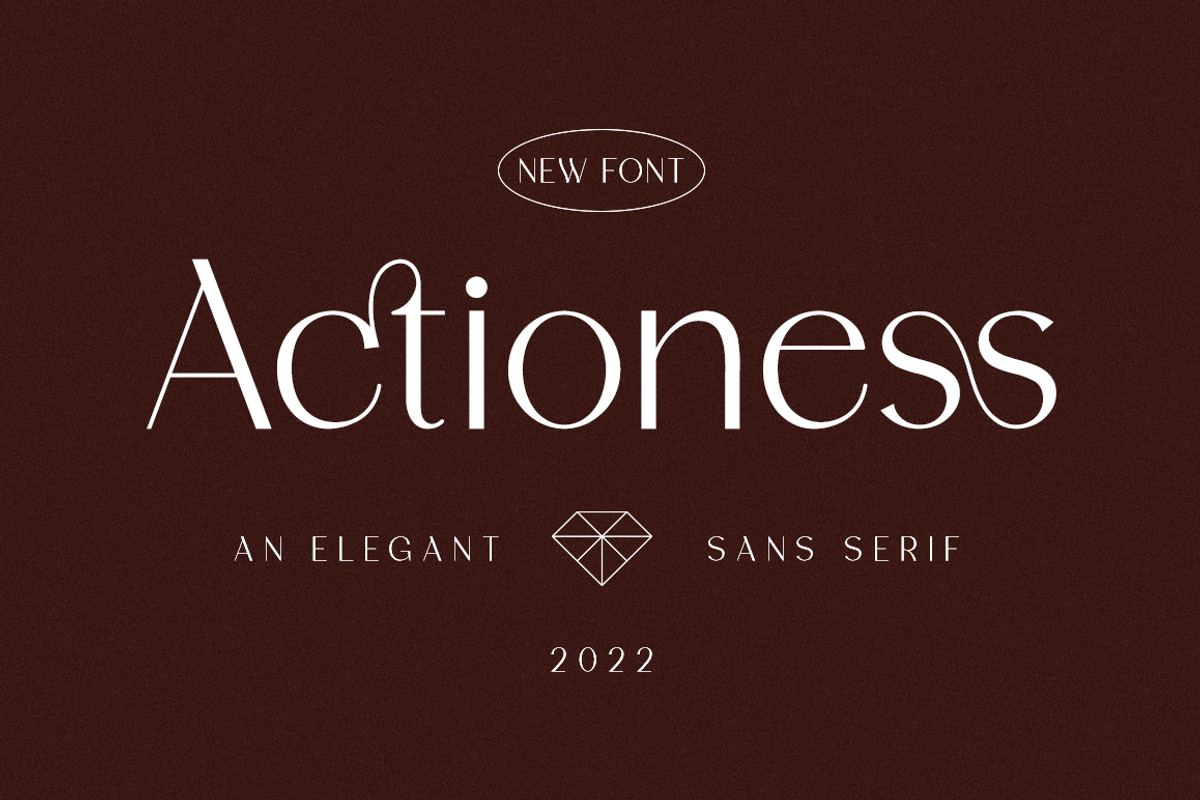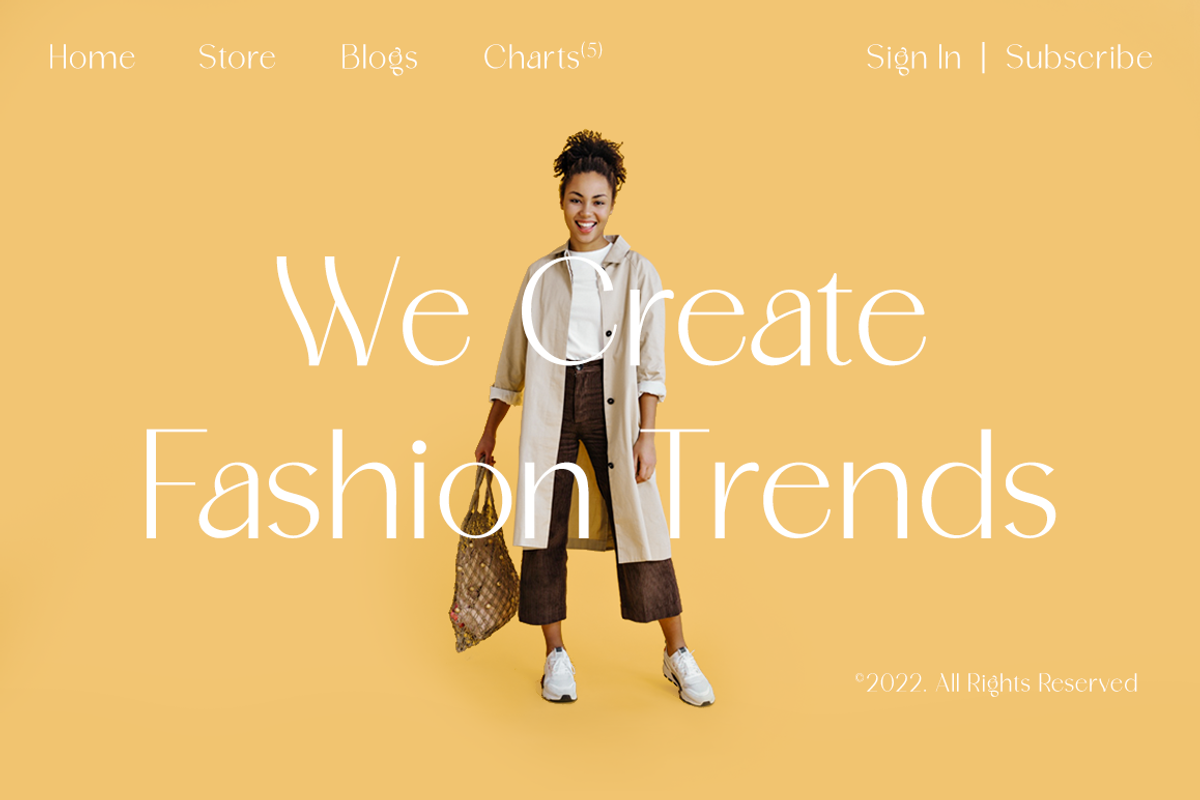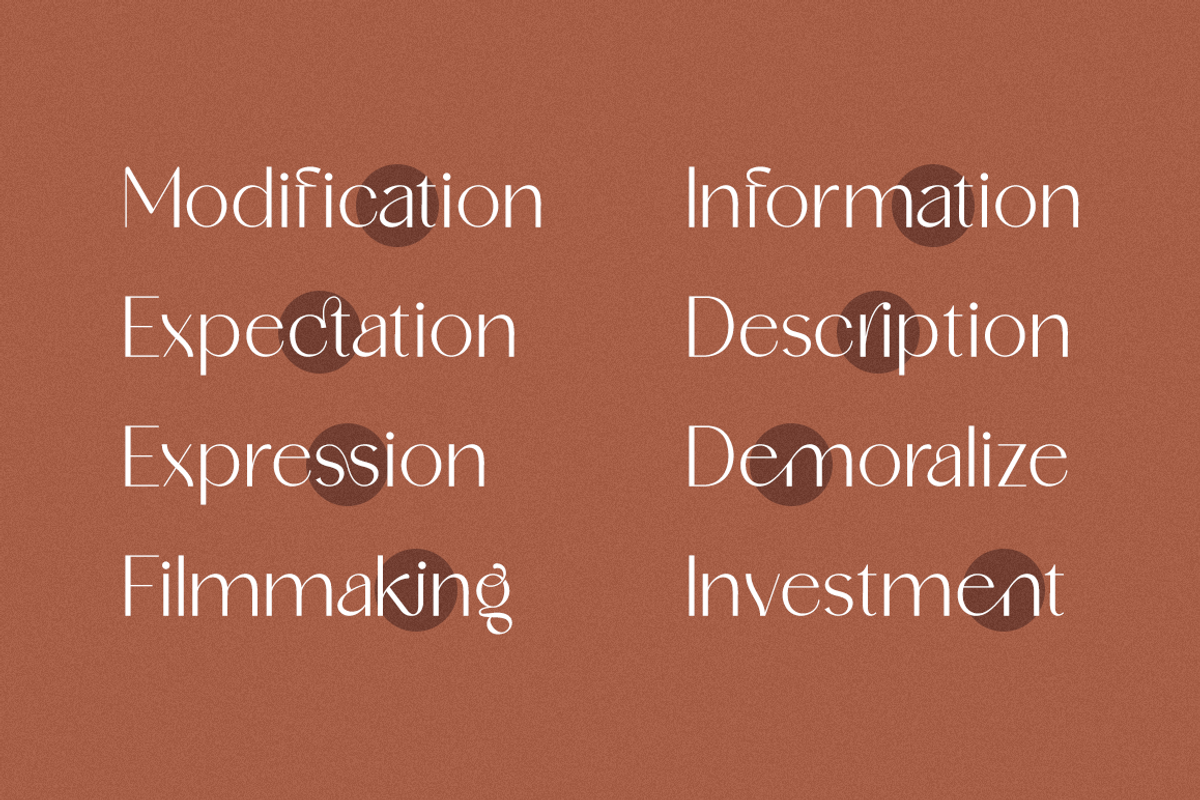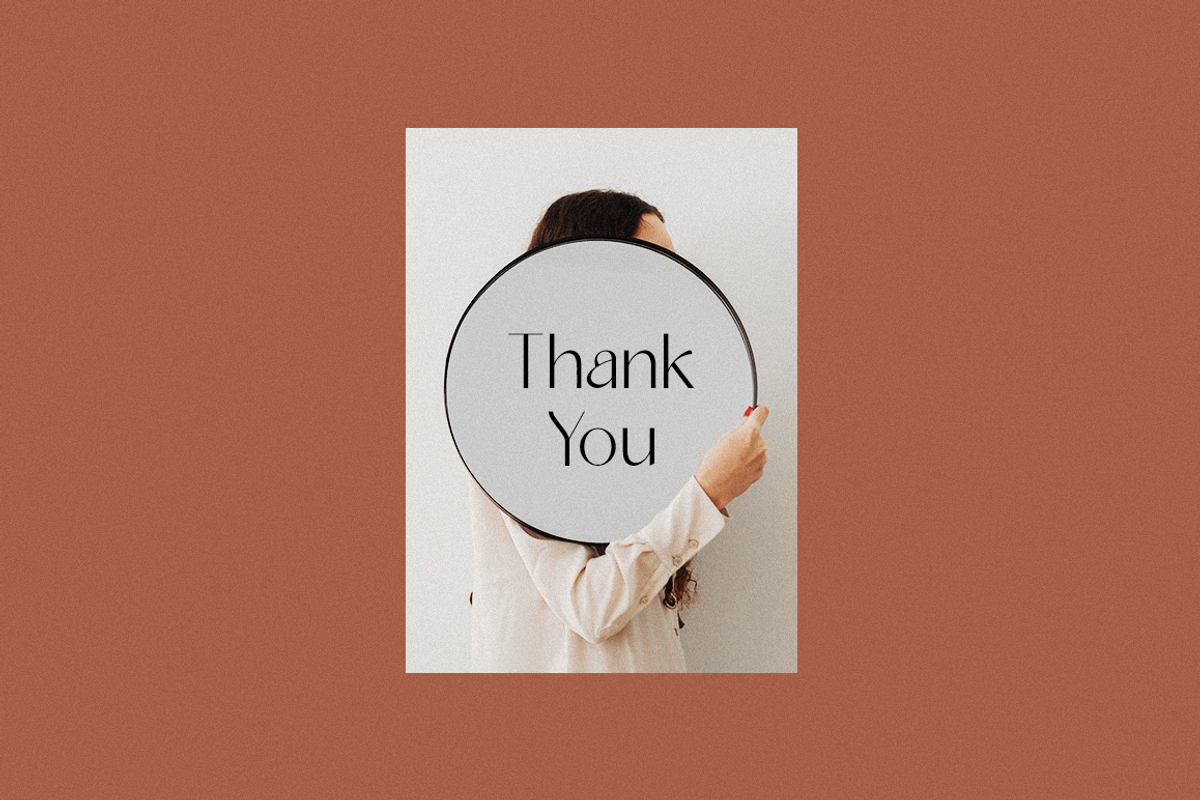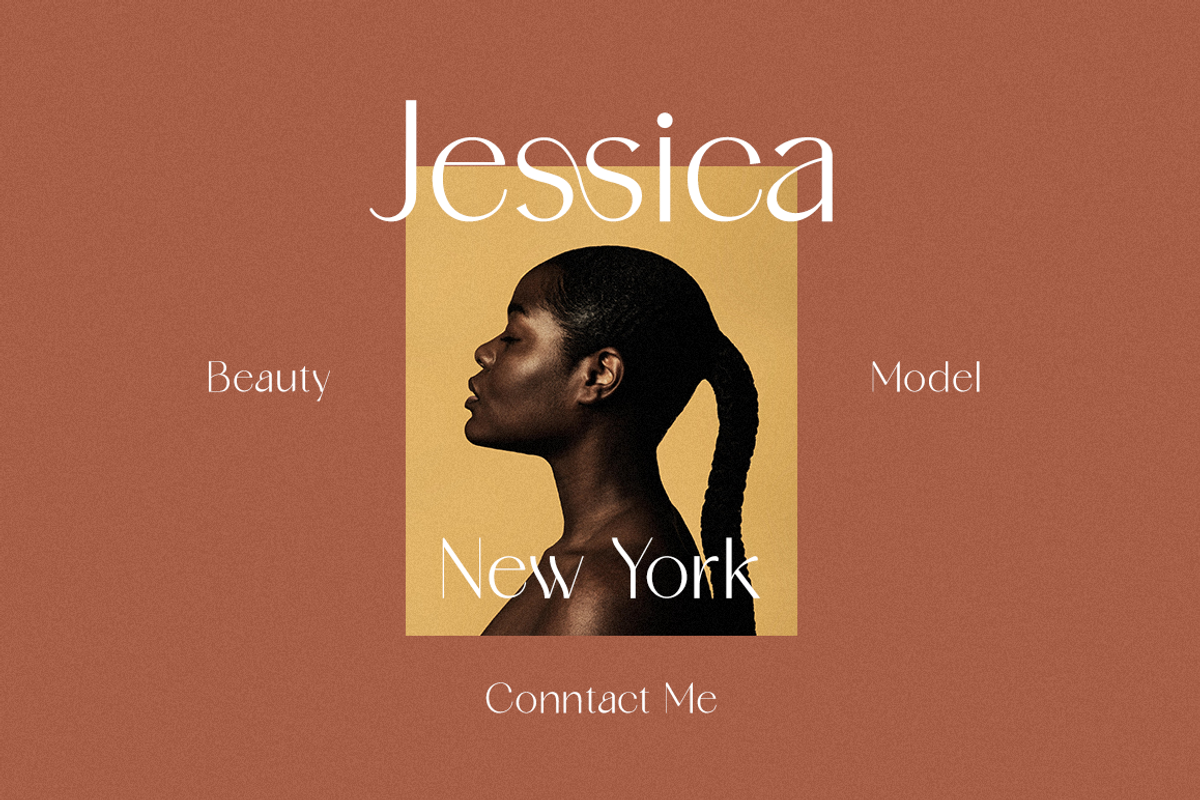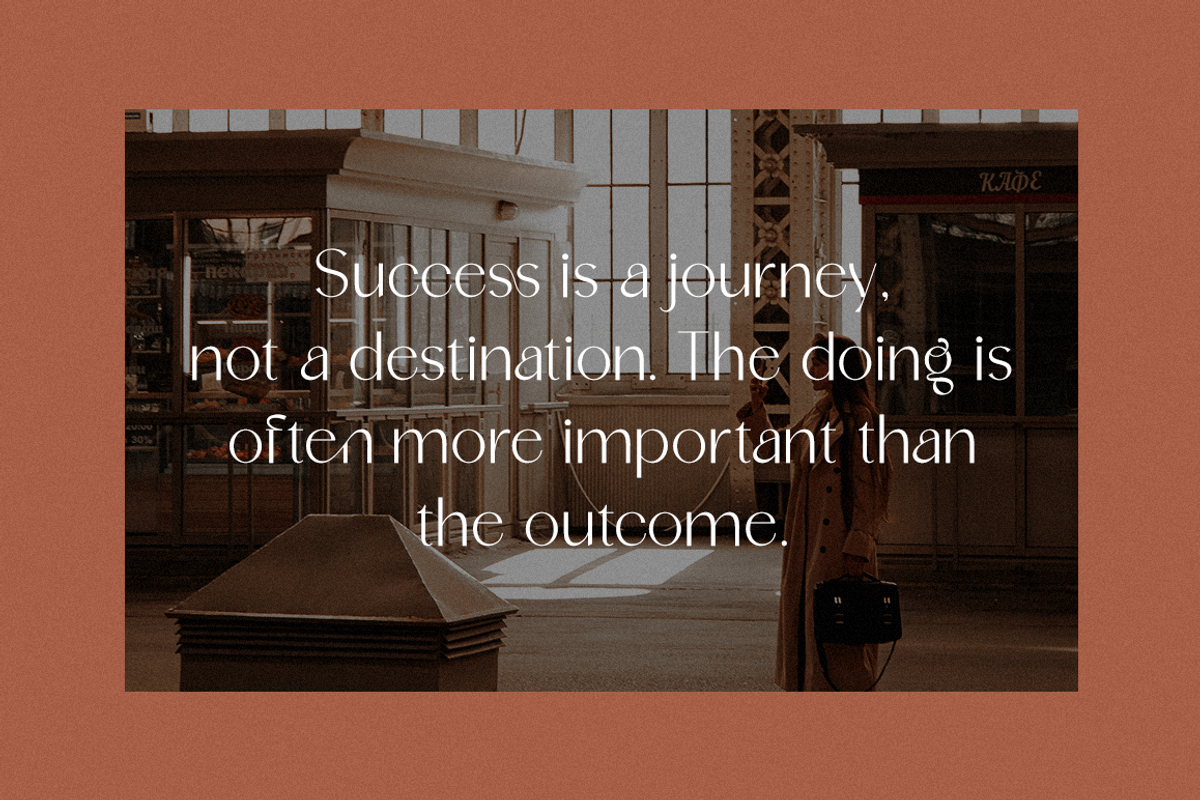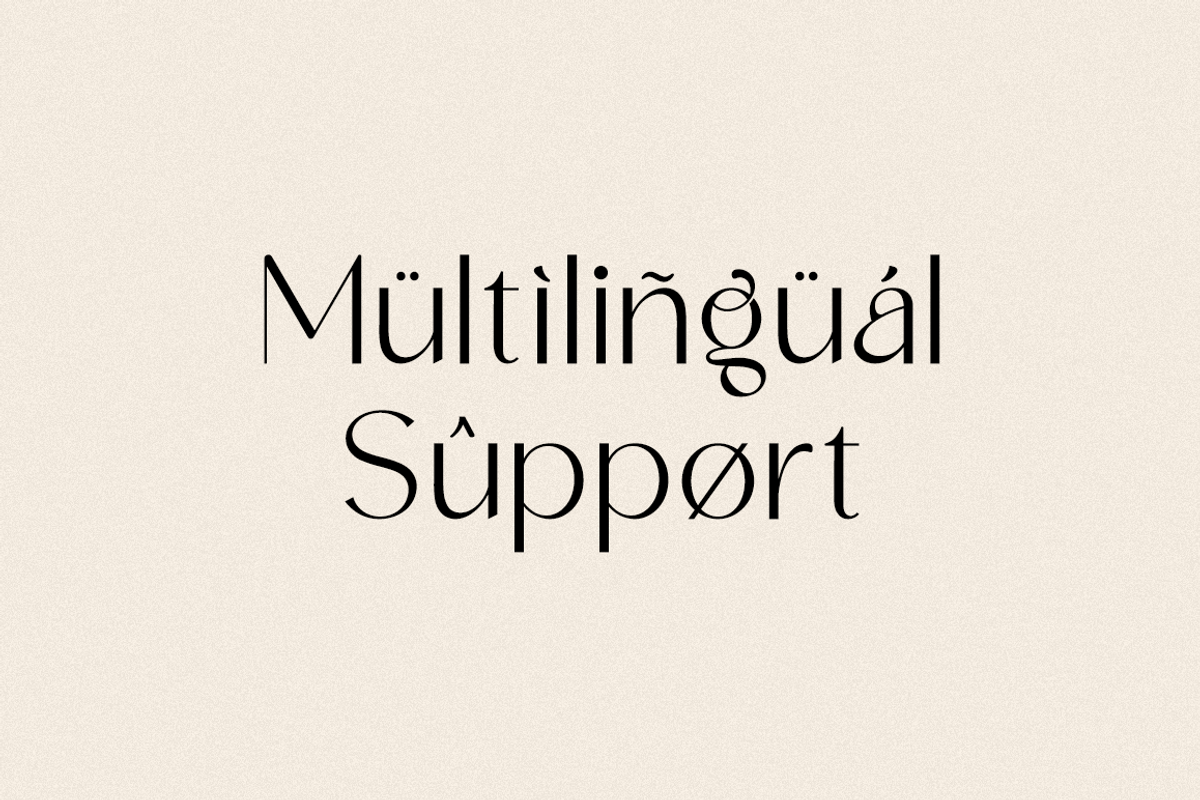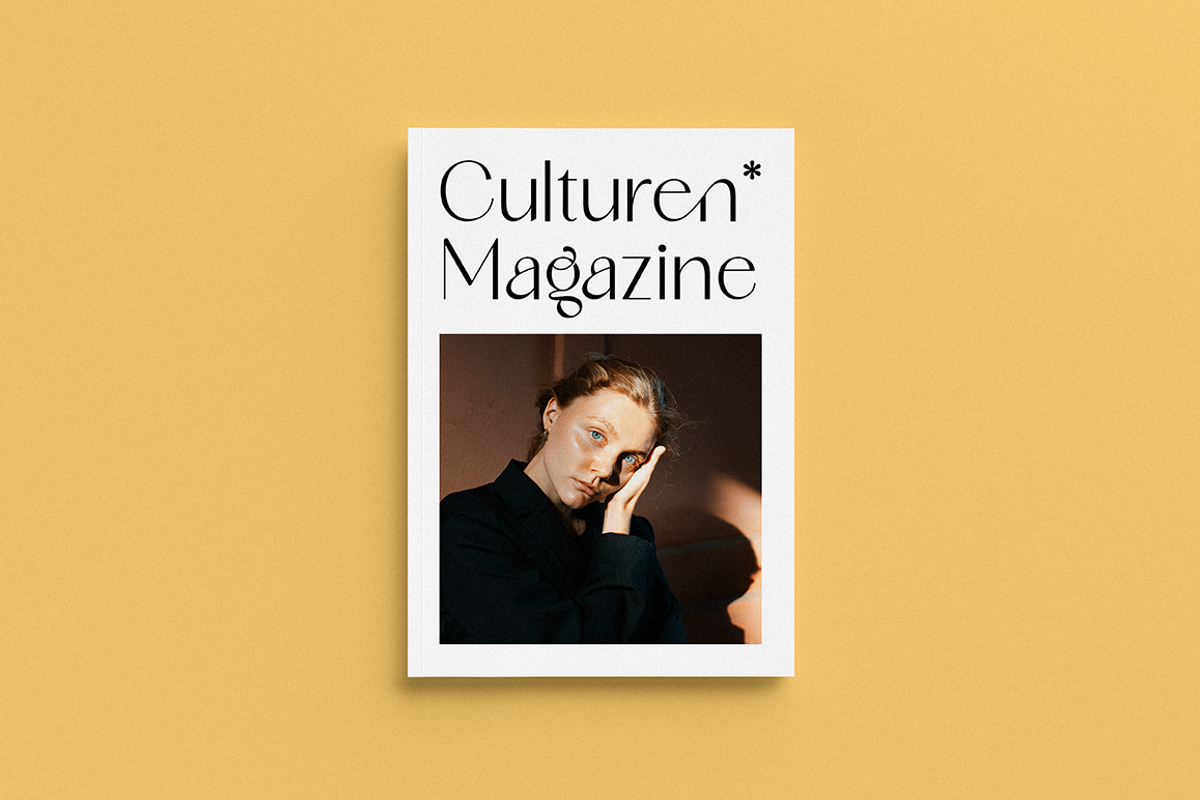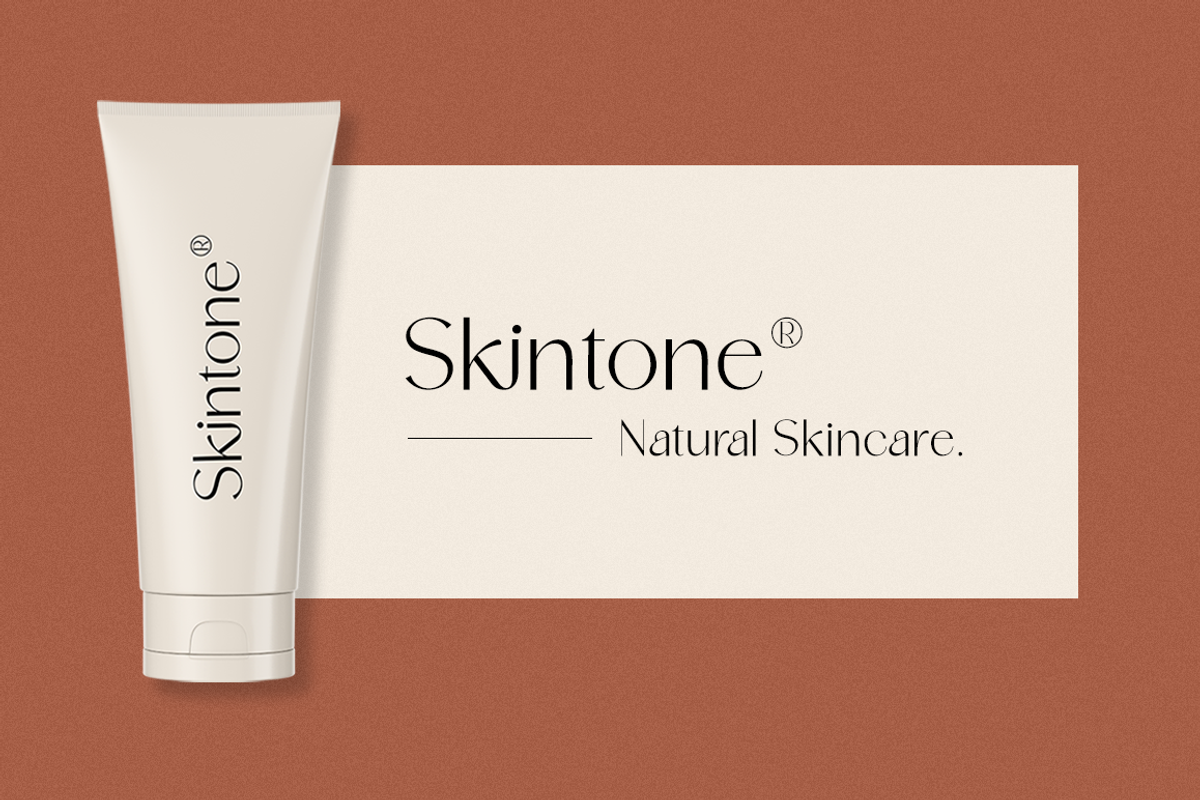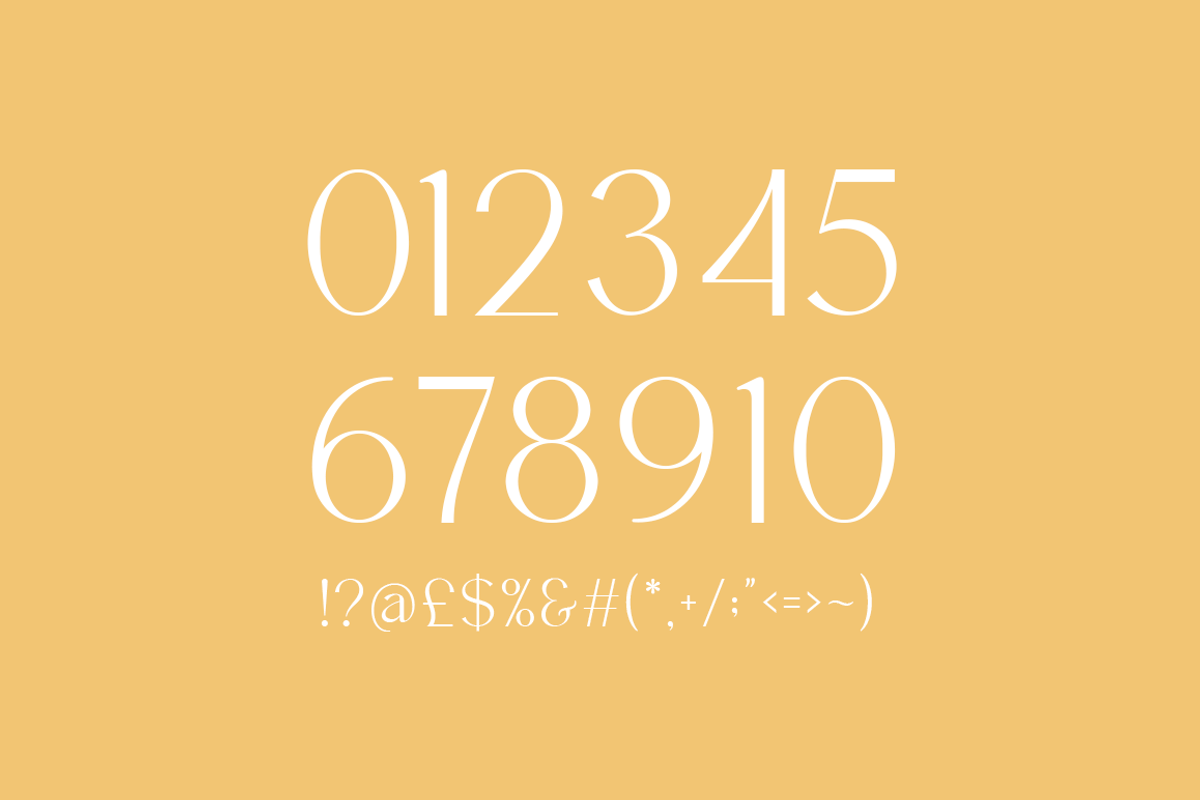
Actioness - Business Font
Actioness is a minimal and modern sans serif font. It can easily be matched to an incredibly large set of projects, so add it to your creative ideas, and notice how it makes them stand out!